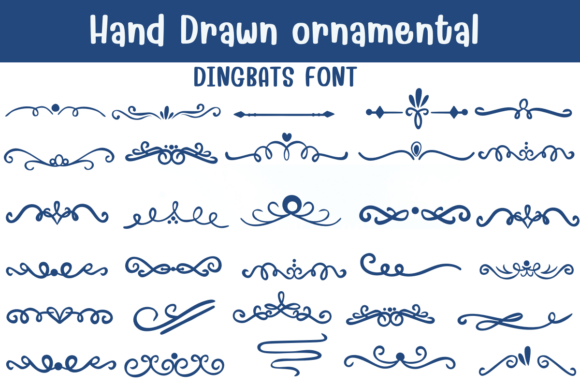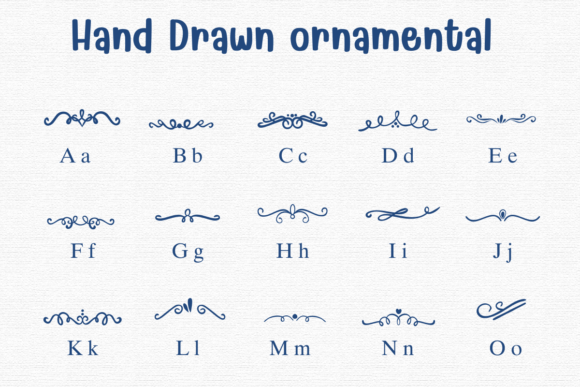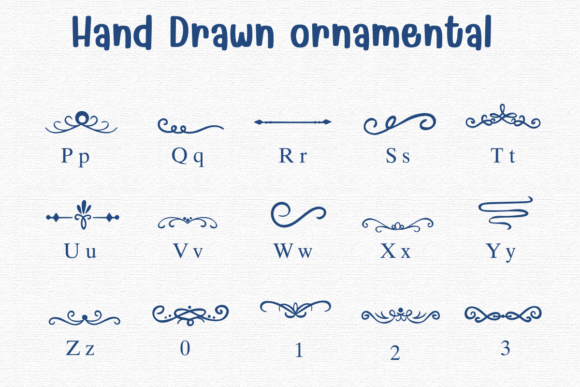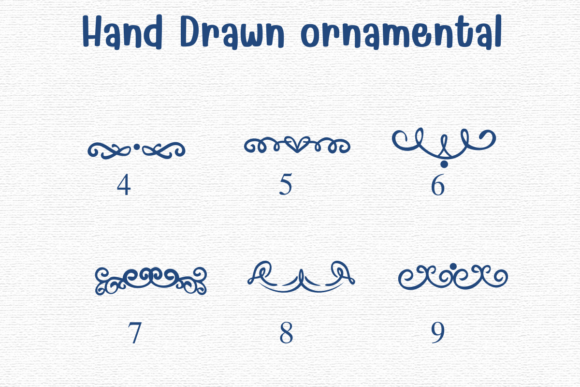
Hand Drawn Ornamental Font
About the Hand Drawn Ornamental Font
Experience the unique personality of Hand Drawn Ornamental Font, a font designed for impact. Hand Drawn Ornamental is a charming dingbats font featuring a versatile collection of whimsical flourishes and elegant dividers. Perfect for enhancing invitations, logos, cards, and crafts, this font adds a touch of handcrafted detail and decorative flair to any design project.
This font’s playful yet elegant nature makes it ideal for projects requiring a touch of whimsical sophistication. It excels in branding applications for boutiques, cafes, or artisan products, adding a handcrafted charm to logos and packaging. Use it sparingly in headlines or short text blocks within larger designs; its decorative style isn’t suitable for body copy or extended reading.
Hand Drawn Ornamental pairs well with clean sans-serif fonts like Montserrat or Open Sans for a balanced contrast, providing readability against the font’s ornate elements. For a more cohesive, vintage feel, consider pairing it with a serif like Playfair Display or Lora. Avoid pairing it with other highly decorative fonts, as this would create visual clutter.
The overall personality is best described as charming and sophisticated, leaning towards a playful elegance rather than a strictly formal or minimalist aesthetic. It evokes a sense of handcrafted quality and attention to detail.
Hand Drawn Ornamental Font Example